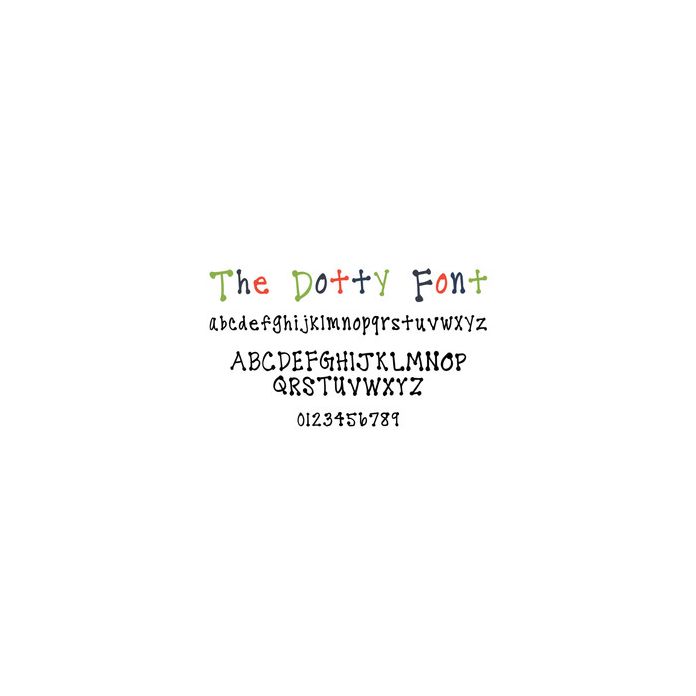
This hand-drawn font contains both the upper and lowercase alphabet, numbers, and 14 special characters such as exclamation point, question mark, etc. 76 characters in all.
The upper case letters are larger than the lower case letters giving is a unique and quirky feel!
(as shown in the title)